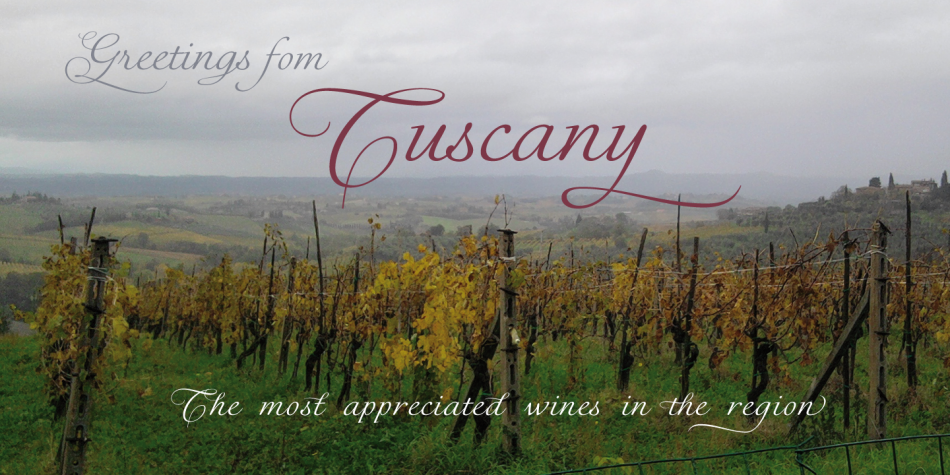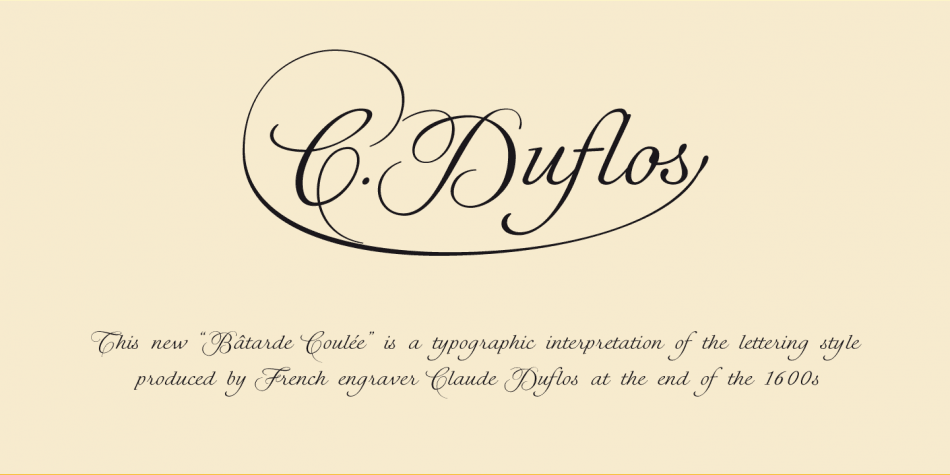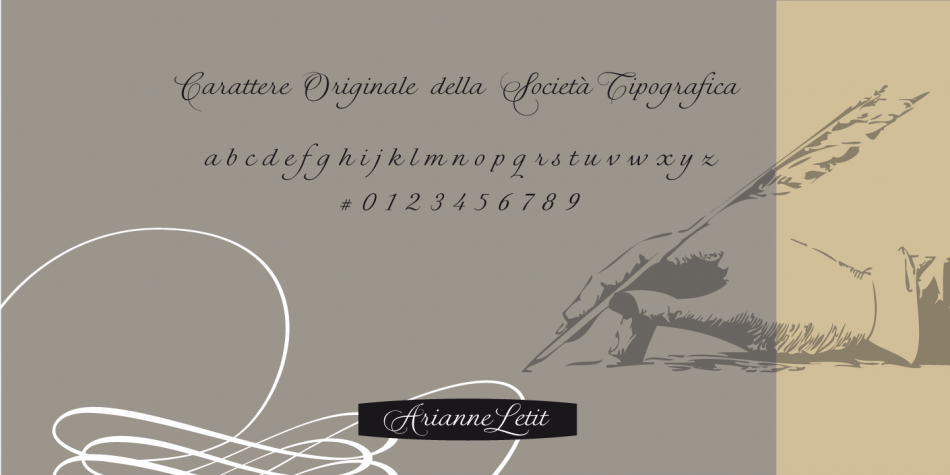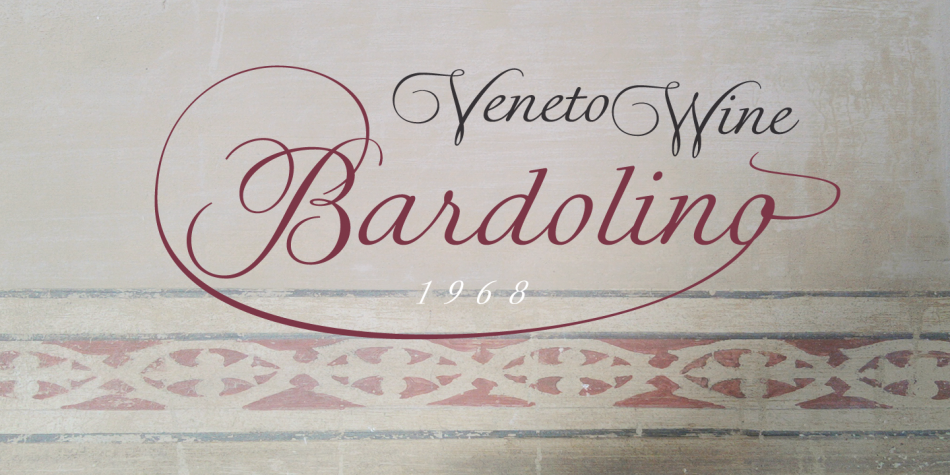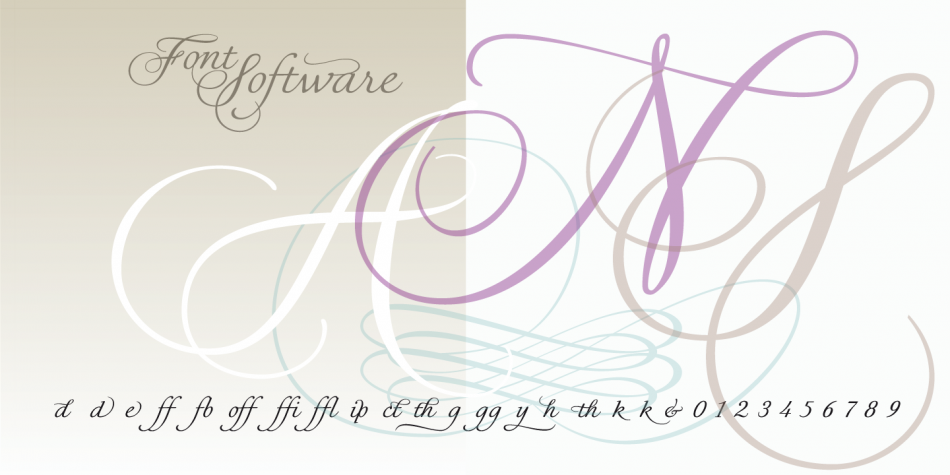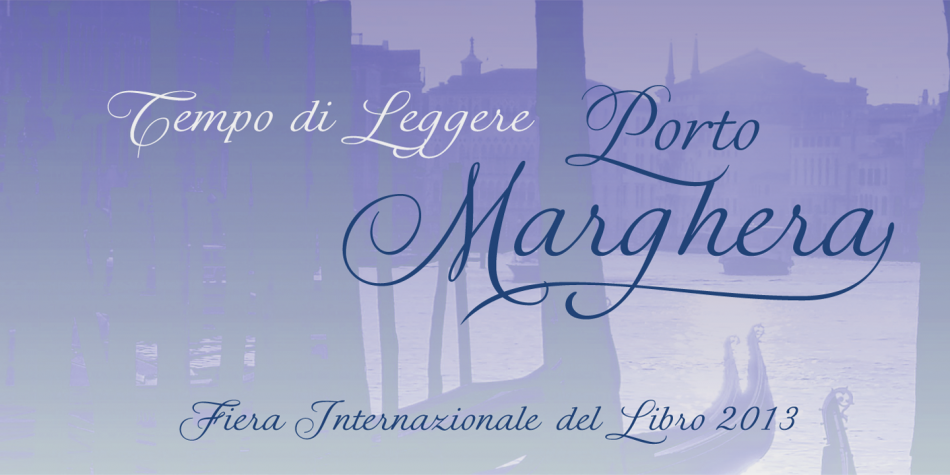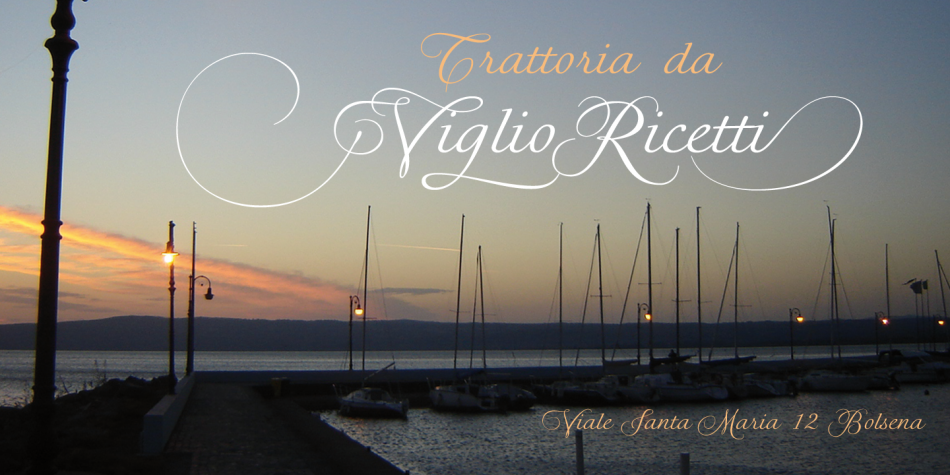
CDuflos Pro
Historical Elegance
CDuflos Pro is a refined calligraphic typeface inspired by the exquisite lettering of Claude Duflos, the renowned French engraver and printmaker active at the end of the 17th century.
Refined Craftsmanship
Duflos was celebrated for his beautifully engraved plates, meticulously executed with the graver and distinguished by their clarity, balance, and elegant rhythm. At the heart of his work lies a highly legible lettering style, carefully drawn with a distinctive ductus that reflects the sophistication of French writing traditions of the period.
Classic Roots
During this era, three major writing styles emerged in France: Ronde (derived from Civilité), Lettre Italienne, and Bâtarde Coulée, a flowing variation of ronde. The joined-letter hand, designed for faster writing, later became the foundation for the English Round Hand and the classic Copperplate style. CDuflos Pro is a contemporary typographic interpretation of this historical lettering, translating its grace and structure into a versatile digital font suitable for modern design needs.
Rich OpenType Features
The typeface includes a rich set of OpenType features, such as ligatures, stylistic alternates, expressive swashes, and elegant terminal letters, allowing designers to create authentic and dynamic compositions. It also comes with a curated collection of ornaments and diacritics supporting Central European languages, expanding its usability across international projects.
Timeless Applications
Perfect for branding, editorial design, invitations, certificates, packaging, book covers, logos, and luxury-inspired projects, CDuflos Pro brings historical elegance and classical craftsmanship into contemporary typography.